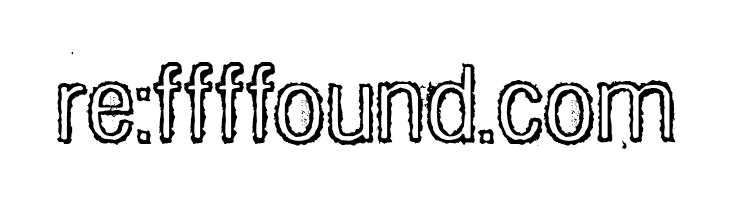
Josefa Rounded Reduced ExtraLight Italic Font
- Font: Josefa Rounded Reduced ExtraLight Italic
( Fonts by www.misprintedtype.com )
A bold, industrial font with a distressed, textured style.